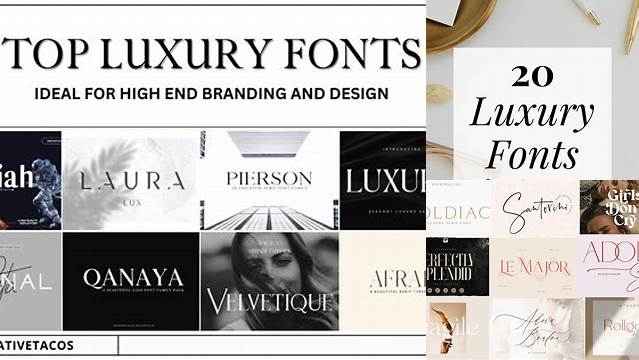
Luxury Fonts In WordPress: A Stylish Guide
Are you ready to take your WordPress website from drab to fab? One of the easiest and most impactful ways to do that is by using luxury fonts. These aren't your run-of-the-mill web fonts; we're talking about the typefaces that scream elegance, sophistication, and a touch of class. Think of them as the designer handbags of the digital world – they instantly elevate your brand's image. In this article, we're diving deep into the world of luxury fonts in WordPress, covering everything from why you should use them to how to get them onto your site. Buckle up, guys, because your website is about to get a serious glow-up!
Why Choose Luxury Fonts for Your WordPress Site?
Choosing luxury fonts for your WordPress site isn't just about aesthetics; it's about making a statement. In today's crowded online landscape, standing out is crucial, and the right font can be your secret weapon. Think about it: your website's typography is one of the first things visitors notice. It sets the tone, conveys your brand's personality, and can even influence how users perceive your credibility.
First and foremost, using luxury fonts helps to establish a strong brand identity. These fonts often possess unique characteristics that immediately distinguish your website from others. They can convey a sense of prestige, exclusivity, and attention to detail – qualities that are highly valued by many businesses and individuals. For example, a fashion blog might opt for a sleek, modern sans-serif font like Montserrat or a classic serif like Playfair Display to signal sophistication and style. Similarly, a luxury travel agency might choose a more elegant and refined typeface to communicate the premium nature of their services. By carefully selecting fonts that align with your brand's values and target audience, you can create a cohesive visual experience that resonates with visitors and builds trust. Luxury fonts aren't just visually appealing; they tell a story. They communicate your brand's essence, values, and aspirations in a way that words alone cannot. They can evoke feelings of luxury, trustworthiness, and expertise, all of which can significantly impact how potential customers perceive your business.
Secondly, luxury fonts can improve the user experience (UX). While aesthetics are important, you also need to ensure that the fonts you choose are readable and easy to navigate. Luxury fonts often strike a perfect balance between style and functionality. They can enhance the readability of your content, making it more engaging and enjoyable for visitors. Well-chosen fonts can also create a visual hierarchy, guiding users through your website and highlighting important information. They can make your content more accessible and improve overall user satisfaction. Think of how a beautifully designed font can enhance the impact of your headlines, subheadings, and body text. It guides the reader's eye, making your content more digestible and visually appealing. Moreover, using luxury fonts in WordPress can significantly improve the professionalism of your site. In a digital world where first impressions are everything, the typography you use can make or break your credibility.
Finally, luxury fonts can boost your SEO. When you use high-quality fonts, it improves your site's overall design and aesthetics. This attracts more visitors and can increase your site's dwell time. As a result, Google might rank your site higher in search results. The more engaging your content, the more likely users are to stay on your site and explore. This increased engagement sends positive signals to search engines, which can lead to improved search rankings.
Finding the Perfect Luxury Fonts for Your Brand
So, where do you even begin to find these magical luxury fonts? The good news is that you've got options, from free resources to premium font foundries. Let's break down a few of the best places to look for fonts that will make your website shine.
Thirdly, consider platforms like Creative Market, where you can find a range of fonts from independent designers and smaller foundries. This can be a great way to discover unique fonts that aren't as widely used. Plus, you're supporting independent creators! Creative Market offers a wide variety of fonts, from elegant serifs to modern sans-serifs, and everything in between. You can find fonts that perfectly align with your brand's style and personality. Be sure to check the licensing terms for each font to understand how you can use it on your website.
Remember, when selecting luxury fonts, think about your brand's personality, your target audience, and the overall look and feel you want to create. Consider readability, legibility, and how well the font will work across different devices and screen sizes. Don't be afraid to experiment and try out different font pairings to find the perfect combination. Choosing a luxury font is like choosing a signature scent – it should perfectly complement your brand's essence.
Installing Luxury Fonts in WordPress: A Step-by-Step Guide
Alright, so you've found the perfect luxury fonts. Now, how do you get them onto your WordPress site? Here's a step-by-step guide to help you out:
Conclusion: Elevate Your Brand with Luxury Fonts
Incorporating luxury fonts into your WordPress website can be a game-changer. They enhance your brand image, improve user experience, and even boost your SEO. By carefully selecting the right fonts and using them wisely, you can create a website that truly stands out. So, go ahead, guys – unleash the power of typography and transform your website into a digital masterpiece!